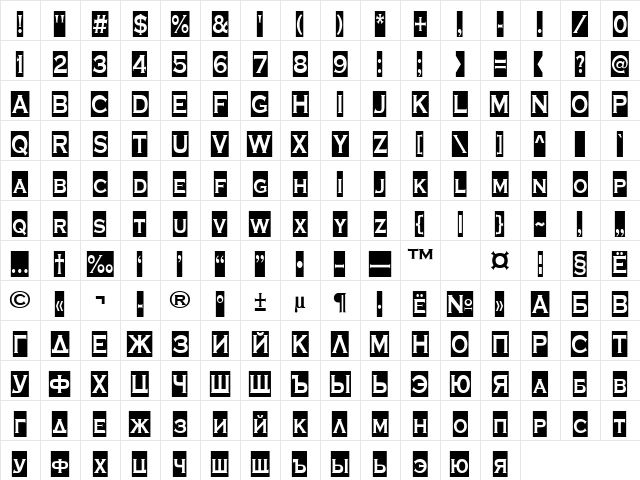
a_CopperGothCm Demi
Design Context for a_CopperGothCm Typeface
a_CopperGothCm offers clean, dependable letterforms without strong stylistic allegiance, making it a practical choice for designers who need flexibility.